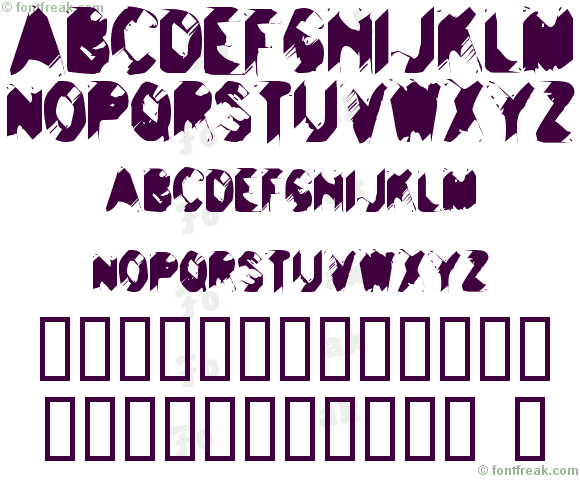
Balls to the Wall
Balls to the Wall is a distinctive display font designed by Rob Dobi in 1998, available for free download under a freeware license. This font belongs to the decorative category, characterized by its bold, jagged edges and unique personality that instantly captures attention. The stroke weight varies significantly throughout each letter, contributing to a dynamic visual appeal. The contrast between the thicker and thinner sections creates an engaging texture, while the intentional irregularities add a playful, rebellious touch.
The font's spacing is tight, enhancing its impact in various contexts. This makes it an excellent choice for eye-catching designs, particularly in creative spaces. Its standout features lend themselves beautifully to specific use cases, such as movie posters that demand bold visuals, punk rock album covers that reflect an edgy aesthetic, and promotional materials for events or concerts that aim to energize audiences. Additionally, it can work well in merchandise designs like t-shirts or stickers, providing a fun and memorable branding element.
The target audience for the Balls to the Wall font includes graphic designers seeking to make an impression, small business owners looking to stand out in a competitive market, and content creators aiming for a distinctive voice in their projects. With its unique characteristics, this font is particularly appealing to those in the creative industries.
What sets the Balls to the Wall font apart is its ability to convey a sense of rebelliousness and energy, making it perfect for projects that need to grab attention and evoke strong emotions. With its bold design and free availability, the Balls to the Wall font free download is an excellent addition to any designer's toolkit, allowing for creative freedom and innovation in various applications.